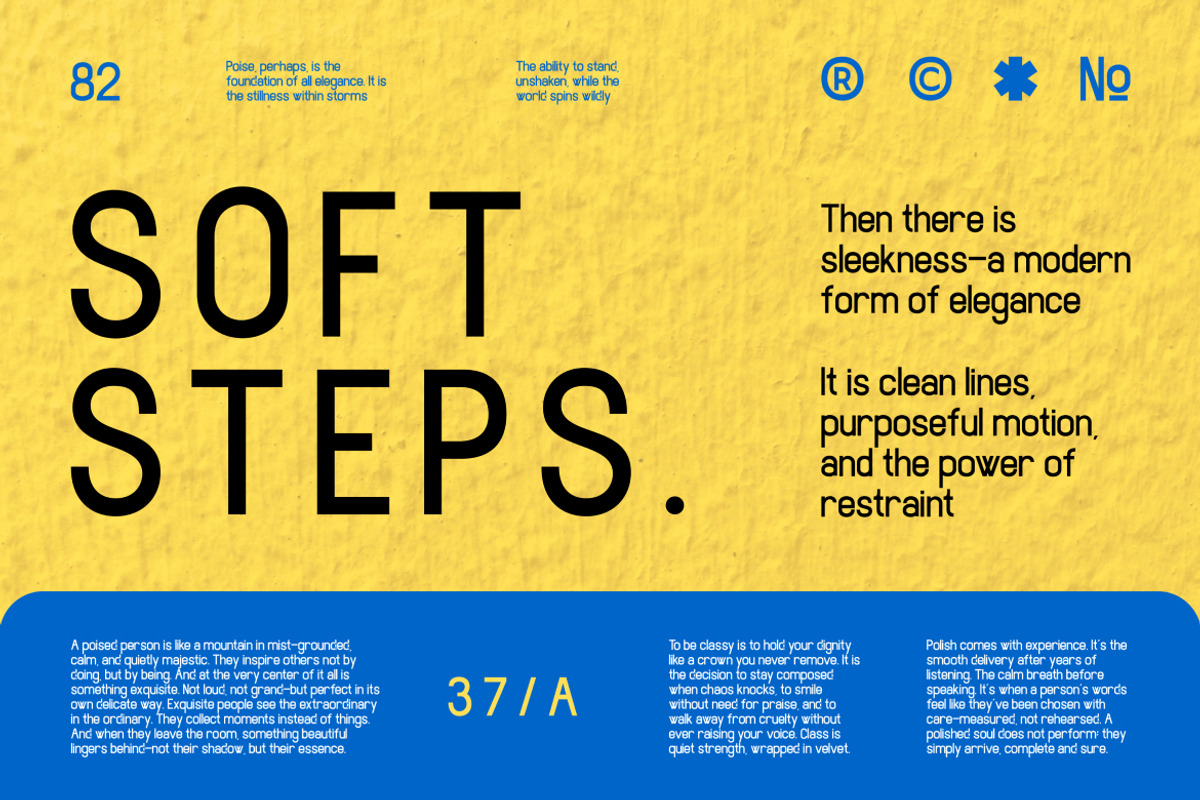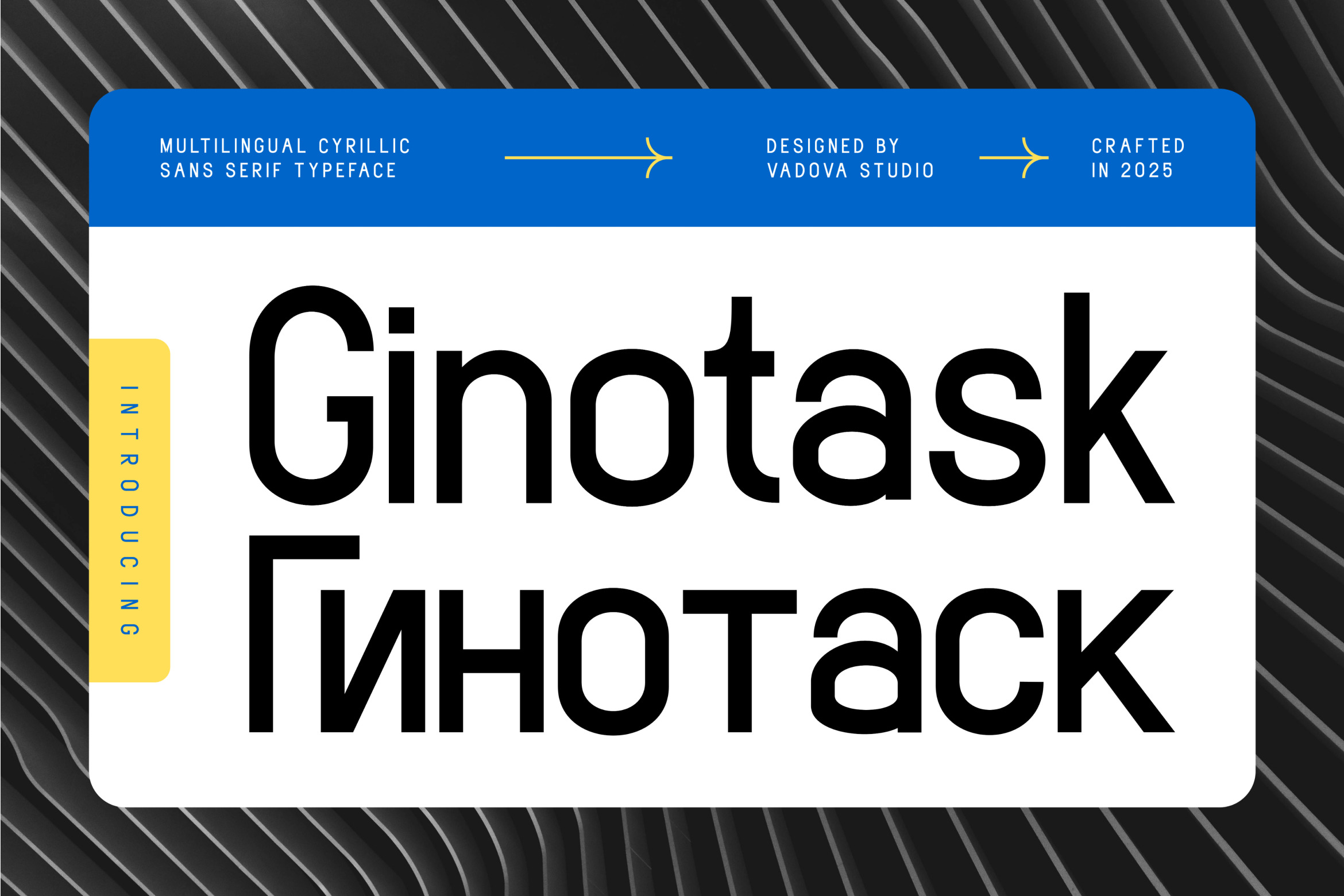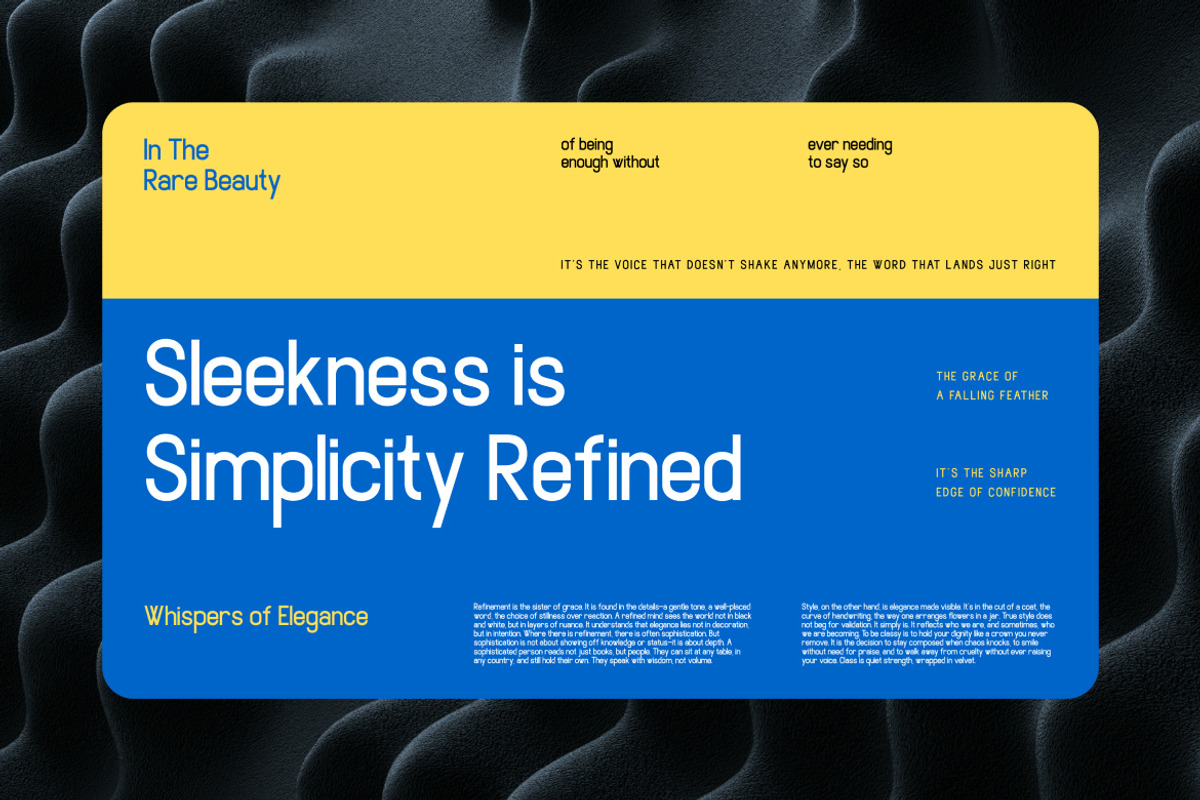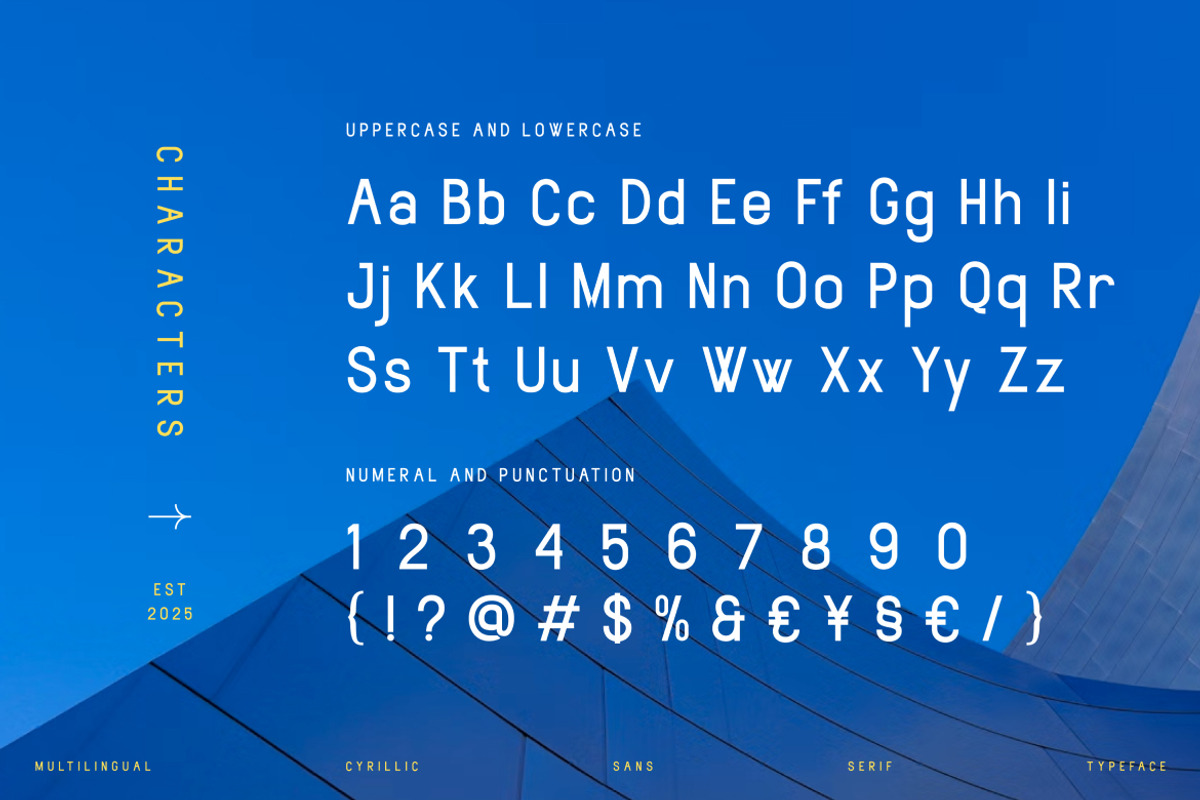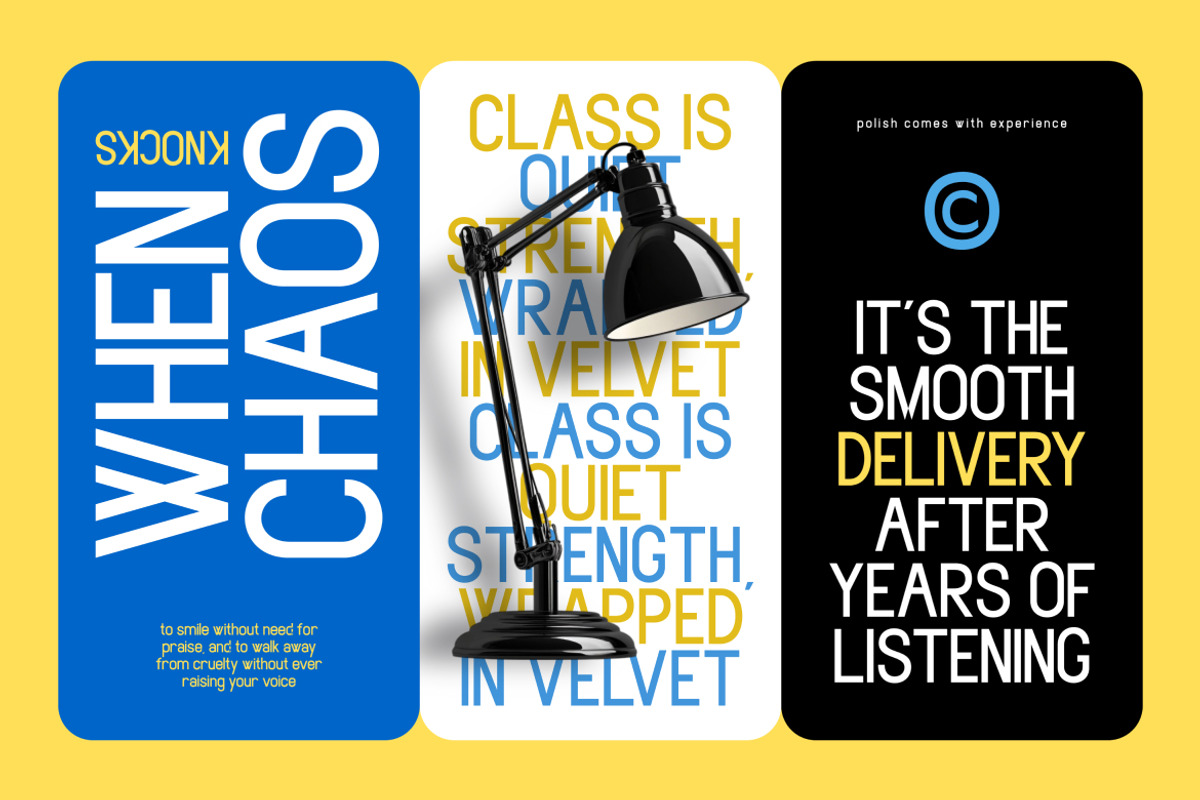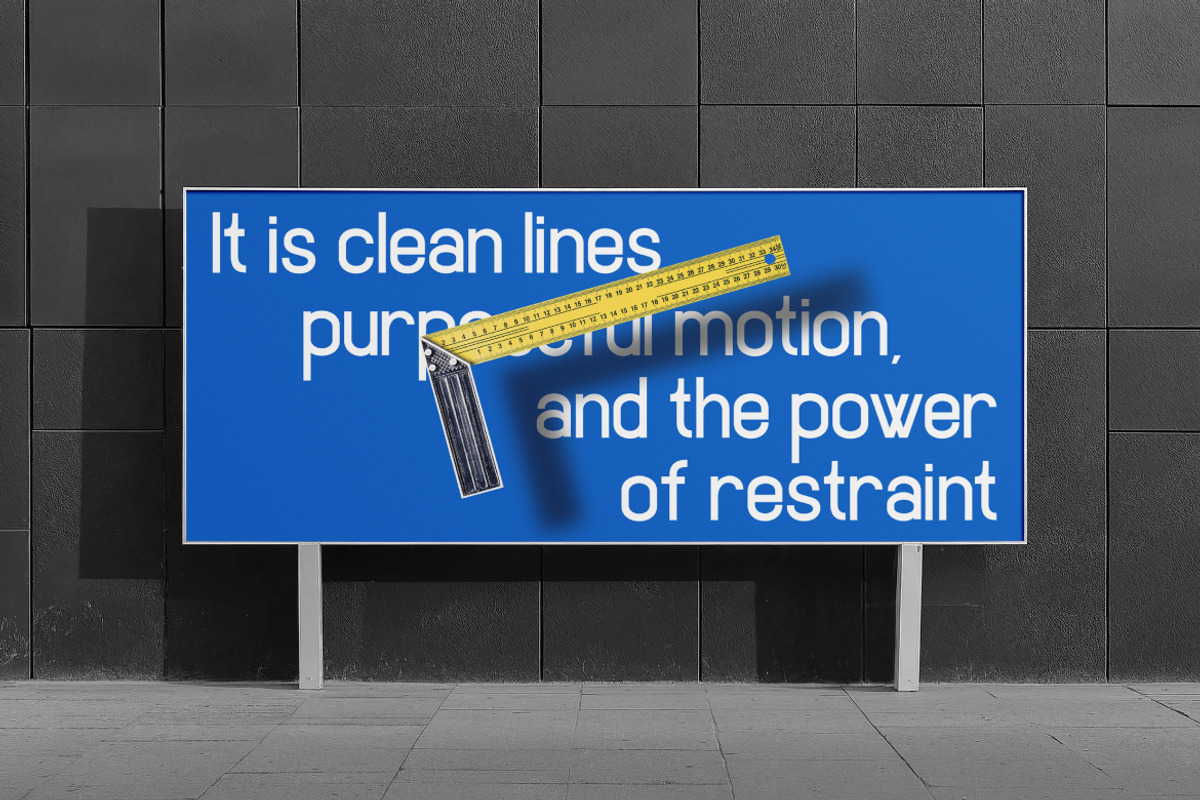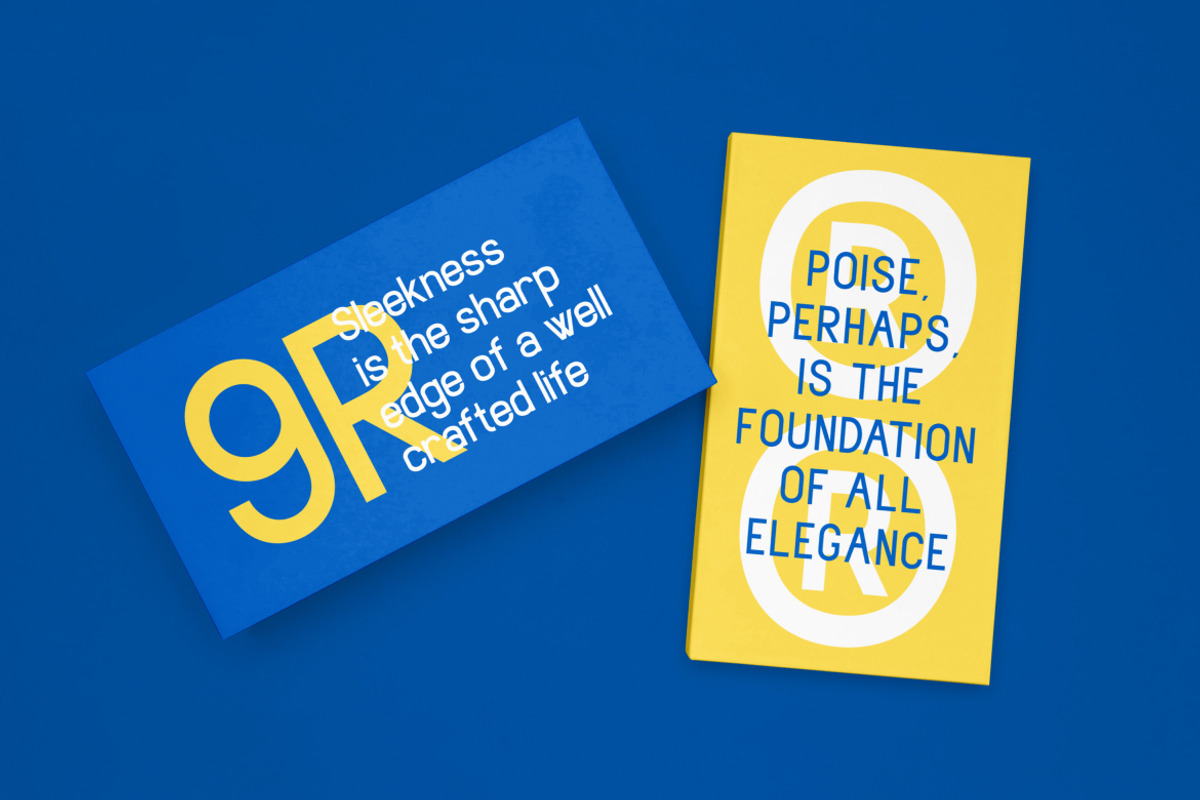
Ginotask Cyrillic Sans Serif Font
Ginotask is a sharp, articulate sans serif typeface with a modern character and a multilingual heart. Designed with contemporary clarity in mind, Ginotask’s geometry fuses mechanical precision with subtle human touches, giving it the power to command attention in both digital and print landscapes. Its letterforms are clean and forward-leaning, balanced by curved counters and meticulously crafted terminals that ensure every glyph feels intentional and distinctive.
At its core, Ginotask is built for functionality. It performs flawlessly across display and paragraph settings, with a consistent stroke width and moderate spacing that contributes to its high legibility. The structure leans on a rational grid, but it doesn’t sacrifice character its slightly condensed build and unique details in characters like “k”, “g”, and “a” inject personality without overpowering the message. Its adaptability makes it ideal for both expressive brand headlines and clear, scalable UI components.
The Ginotask font family comes with full support for both Latin and Cyrillic scripts, offering a complete set of uppercase and lowercase characters, numbers, and extensive punctuation. Whether you’re designing for global brands, multilingual user interfaces, or diverse editorial markets, Ginotask ensures linguistic versatility without compromise. It’s also optimized for readability in screen environments, with strong performance at both large and small sizes.
- Geometric sans serif with condensed, high-clarity letterforms
- Subtle humanist curves for added warmth and distinction
- Balanced proportions with consistent stroke widths
- Distinctive characters like “g”, “k”, and “a” to create visual interest
- Clear typographic hierarchy, suitable for headers and body text
- Branding kits and identity systems for modern startups and tech companies
- UI/UX design templates for apps, dashboards, and web interfaces
- Editorial templates including magazines, brochures, and reports
- Creative studio mockups, social media kits, and pitch decks
- Product packaging, software design, and minimal logo projects
- Professional branding kits and identity systems for digital-first companies
- UI/UX templates and wireframes for apps, SaaS, and tech products
- Editorial layouts, online magazines, and multilingual content design
- Bold, clean presentations, pitch decks, and startup assets
- Product labels, packaging design, and modular marketing kits